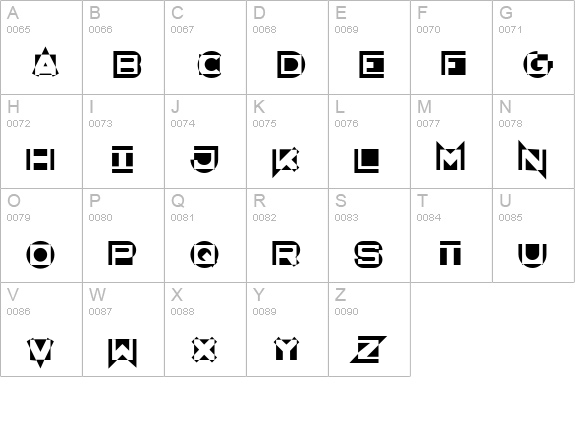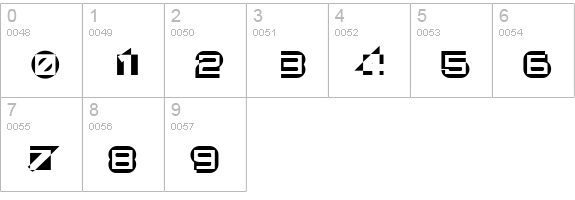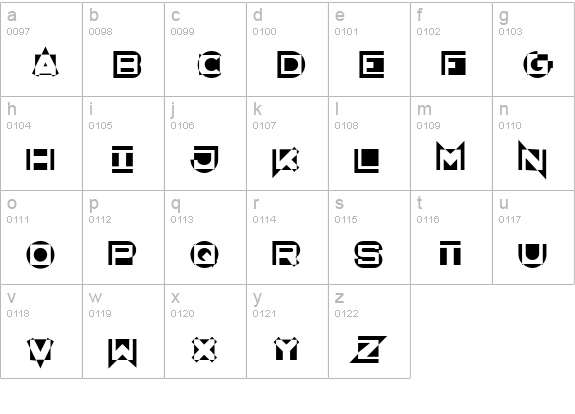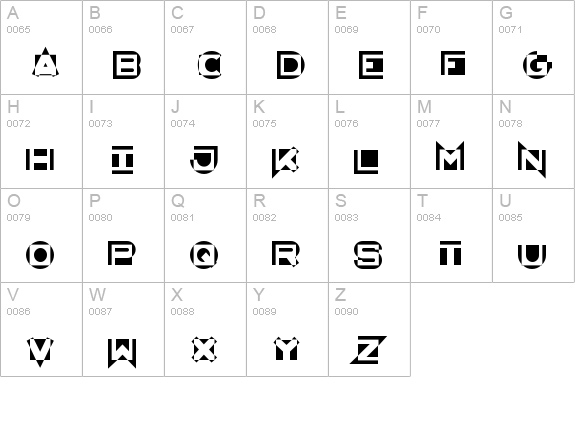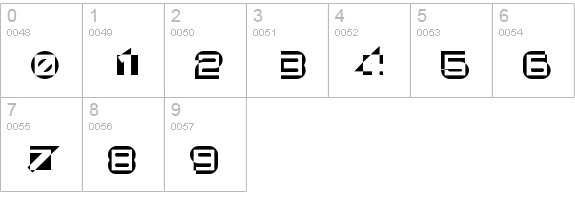
AntiMatter KG is a sleek and modern font that exudes sophistication and elegance. With its clean lines and sharp edges, this typeface is perfect for adding a contemporary touch to any project. The geometric shapes and futuristic style of AntiMatter KG make it ideal for use in branding, advertising, and graphic design. What sets AntiMatter KG apart is that it is available for free download at FontsMarket.com. This means that you can easily access this stylish font and use it in your creative endeavors without any cost. Whether you're designing a logo, creating a poster, or working on a website, AntiMatter KG is a versatile choice that will elevate your work to the next level. Don't miss out on the opportunity to enhance your projects with the striking design of AntiMatter KG. Download this font for free today and see how it can make a difference in your visual creations.